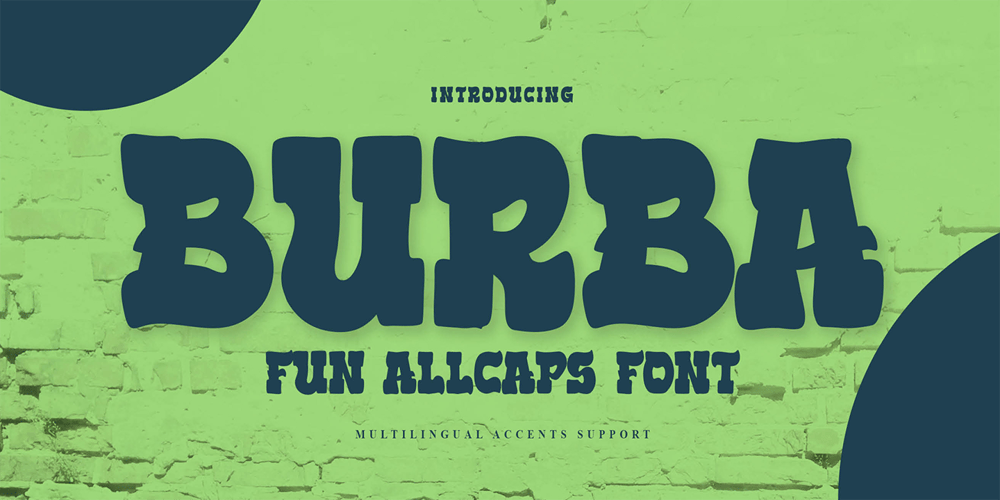
Burba Font Family was designed by Abdul Malik Wisnu, Anang Fibriyanto and published by Gassstype. Burba contains 1 styles and family package options. Hello Everyone, introduce our new product Font BURBA This Is All Caps Display Font.This is a Textured Natural Style and classy style with a clear style and dramatic movement.This font BURBA is great for your next creative project such as logos, printed quotes, invitations, cards, product packaging, headers, Logotype.